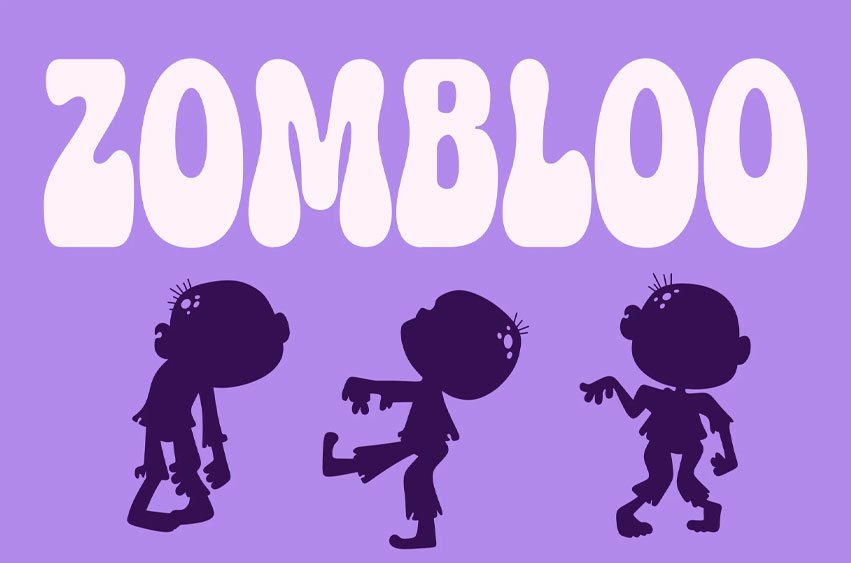
Zombloo Font is a bold psychedelic display font with funky curves and playful retro energy. Designed for posters, music artwork, branding, packaging, and creative projects, this font delivers eye-catching personality and groovy aesthetics.
Zombloo combines organic shapes with expressive typography, making every design feel vibrant, unique, experimental, and full of character.